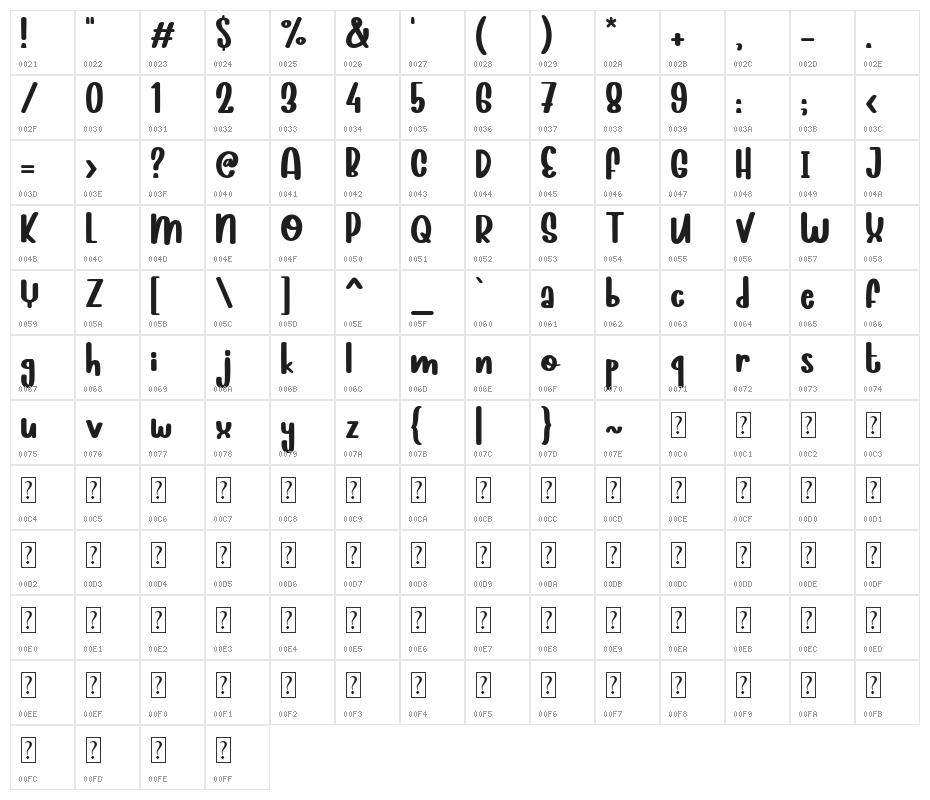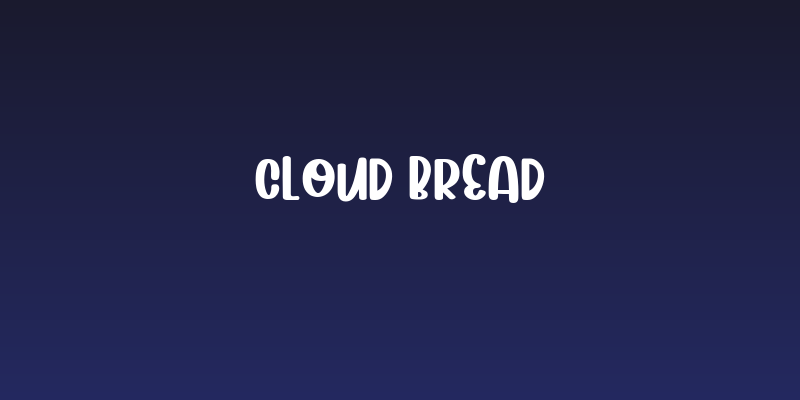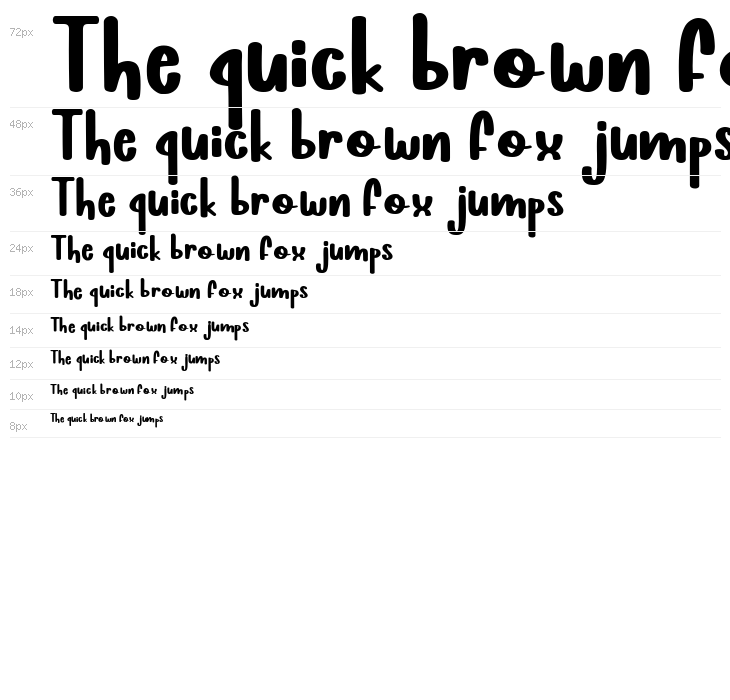
Cloud Bread Font
Cloud Bread Description
This playful and bold font features rounded edges and a whimsical style, making it ideal for projects that require a fun and approachable aesthetic. The characters are thick and uniform, with a slight bounce in the baseline that adds to its charm. The uppercase and lowercase letters maintain a consistent style, with the lowercase letters offering a more casual feel. Numbers and special characters are designed with the same playful touch, ensuring a cohesive look across all text. This font is perfect for children's books, playful branding, and any project that aims to convey a sense of joy and creativity.
| Proposed Projects | Children's books, playful branding, creative posters, and invitations. |